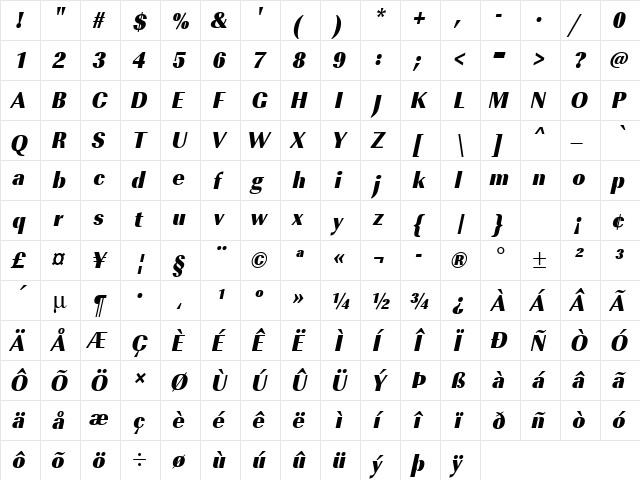
URWImperialTUltBolExtNar Oblique
Design Context for URWImperialTUltBolExtNar Typeface
URWImperialTUltBolExtNar offers clean, dependable letterforms without strong stylistic allegiance, making it a practical choice for designers who need flexibility. The dynamic lean of this cut emphasises speed and emphasis in any layout.
Pro Tip: Try URWImperialTUltBolExtNar for annotation and caption copy alongside an upright companion — the contrast in angle creates a dynamic but ordered typographic system.